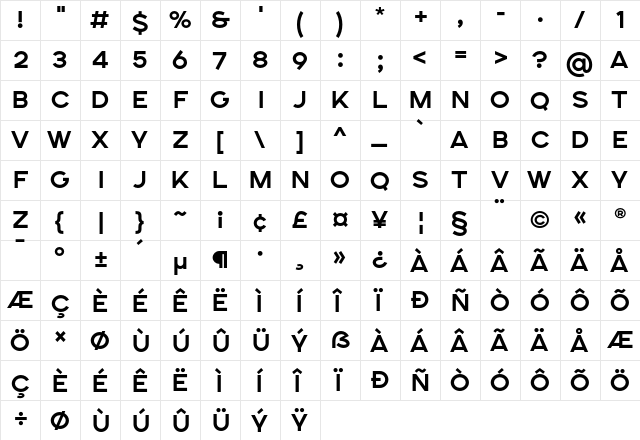
SONGER SemiExpanded Bold
| Foundry | Alexander Pravdin |
| Designer | Alexander Pravdin |
Design Context for SONGER SemiExpanded Typeface
SONGER SemiExpanded takes a measured approach to typography — its balanced proportions and neutral character make it a reliable workhorse for both digital and print work. The heavy weight commands attention and anchors typographic hierarchies.